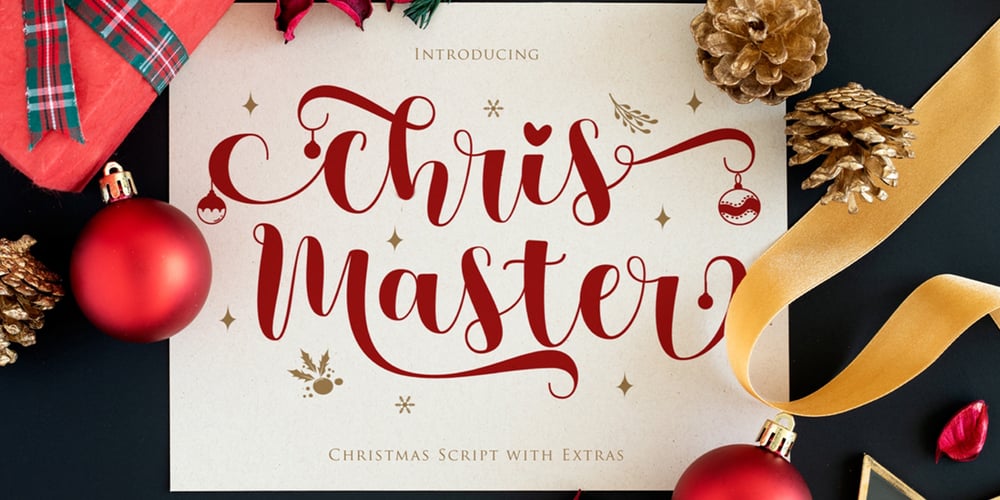
Chris Master Font Family was designed by Gumilar Pratama Adiatna and published by Gilar Studio. Chris Master contains 1 styles and family package options. ChrisMaster is a Christmas Script font and an extra font containing doodle illustration.It looks stunning on wedding invitations, thank you cards, quotes, greeting cards, logos, business cards and every other design which needs a handwritten touch.This font is PUA encoded which means you can access all of the glyphs and swashes with ease! It features a varying baseline, smooth lines, gorgeous glyphs and stunning alternatesPlease check all lowercase, uppercase and numerals to access all Doodle in font format.The best tool if you want to create t-shirt designs, mug designs, logos or just play around.Features :Uppercase & LowercaseNumerals & Punctuations (OpenType Standard)Accents/Multilingual charactersbeginning and ending swash (ss01-ss06) beautiful ligaturePUA EncodedTo access all OpenType Stylistic alternates, you need a program thatsupports OpenType features such as Adobe Illustrator, Adobe Photoshop,CorelDraw and Microsoft word.The font has PUA Unicode (Private Use Areas – font specific code), sothat all the alternative characters (with flourishes and swirly lines)can be easily accessed in full through Windows and Mac and you can loadt hem into applications such as Cricut Design Space and SilhouetteStudio.Check my other Font here : https://gilarstudio.com/